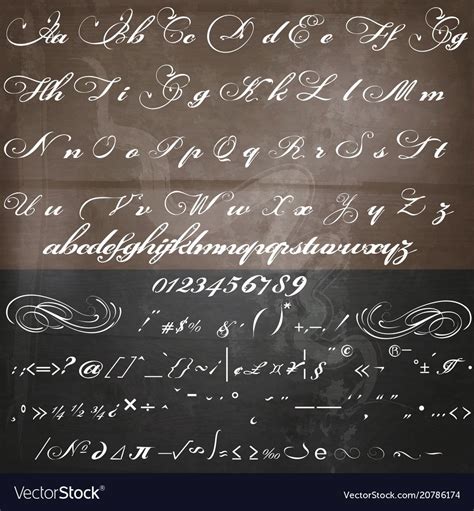
Old Victorian Font
Old Victorian Font - Victorian fonts have designs that reflect the victorian period of art in britain in the early 1900s. Looking for vintage victorian fonts? Experience the timeless beauty of old english with our free collection of fonts. Looking for victorian old english fonts? Victorian letters are elaborate and have ornate. Click to find the best 24 free fonts in the victorian old english style. Click to find the best 127 free fonts in the vintage victorian style. Enjoy crafting the perfect look with classic lettering. 1001 free fonts offers a huge selection of free victorian fonts for windows and mac. Every font is free to download!
Click to find the best 127 free fonts in the vintage victorian style. Looking for victorian old english fonts? Every font is free to download! Experience the timeless beauty of old english with our free collection of fonts. Enjoy crafting the perfect look with classic lettering. Victorian fonts have designs that reflect the victorian period of art in britain in the early 1900s. Looking for vintage victorian fonts? Victorian letters are elaborate and have ornate. Click to find the best 24 free fonts in the victorian old english style. Every font is free to download!
Victorian style alphabet, fancy serif letters, antique font for old
Best Victorian Fonts (+ Fancy Victorian Era Script Fonts)
Looking for vintage victorian fonts? Victorian fonts have designs that reflect the victorian period of art in britain in the early 1900s. Enjoy crafting the perfect look with classic lettering. Every font is free to download! Every font is free to download!
Victorian alphabet in ancient style. Antique old Font for Whiskey label
Looking for vintage victorian fonts? Every font is free to download! Click to find the best 24 free fonts in the victorian old english style. Experience the timeless beauty of old english with our free collection of fonts. Click to find the best 127 free fonts in the vintage victorian style.
Old Vintage Victorian Font Ttf, Otf, Bundle, Cricut, Vintage Font
Click to find the best 127 free fonts in the vintage victorian style. Looking for victorian old english fonts? Looking for vintage victorian fonts? Every font is free to download! 1001 free fonts offers a huge selection of free victorian fonts for windows and mac.
Hand made script font in vintage victorian style Vector Image Script
Looking for victorian old english fonts? Victorian fonts have designs that reflect the victorian period of art in britain in the early 1900s. Enjoy crafting the perfect look with classic lettering. Experience the timeless beauty of old english with our free collection of fonts. Victorian letters are elaborate and have ornate.
60 Vintage and Retro Fonts Best Free and Premium Typefaces on The
Victorian fonts have designs that reflect the victorian period of art in britain in the early 1900s. Enjoy crafting the perfect look with classic lettering. Victorian letters are elaborate and have ornate. Looking for victorian old english fonts? Looking for vintage victorian fonts?
Looking For Victorian Old English Fonts?
Victorian fonts have designs that reflect the victorian period of art in britain in the early 1900s. Looking for vintage victorian fonts? Victorian letters are elaborate and have ornate. 1001 free fonts offers a huge selection of free victorian fonts for windows and mac.